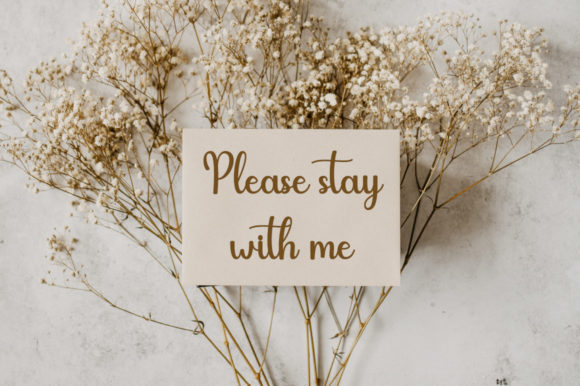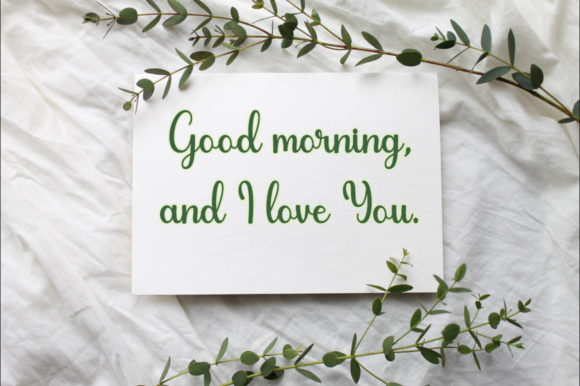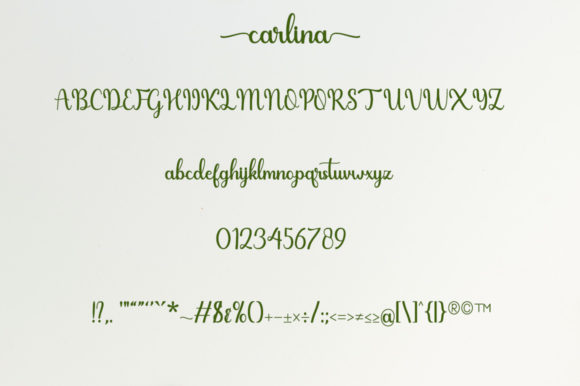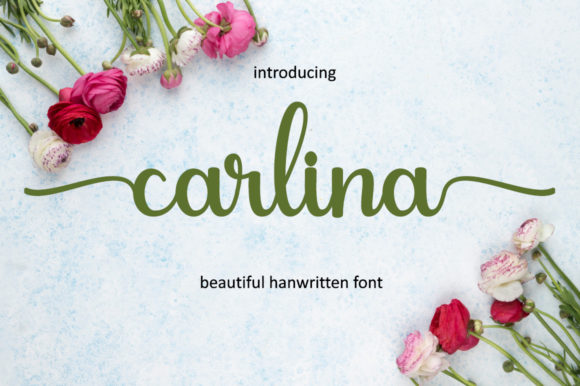
The Magic of Carlina Font: Elevating Your Designs with Elegance
I’ll never forget the moment I stumbled upon the Carlina font. I was working on a wedding invitation project for a client who wanted something elegant, yet playful. I had spent hours scouring through font libraries, but nothing seemed quite right. That was until I saw Carlina – its romantic calligraphy style and dancing characters immediately caught my eye. It was love at first sight! 💕
Carlina is more than just a beautiful font – it’s a game-changer for designers, crafters, and creative hobbyists looking to add a touch of luxury to their projects. In this article, I’ll share my honest review of Carlina, a step-by-step guide on how to use it, and some helpful tips and tricks to get the most out of this stunning typeface.
An Honest Review of Carlina Font
What I Love About Carlina ✨
- 💫 Romantic and sweet calligraphy style that’s perfect for wedding invitations, branding, and packaging designs
- 🌟 Highly legible and versatile, suitable for a wide range of design projects
- 🎨 Beautifully crafted characters that dance along the baseline, adding a touch of elegance to any design
- ⚠️ Some users may find the font a bit too ornate for certain projects, such as body text or captions
The Backstory of Carlina Font
Carlina is a beautiful calligraphy typeface designed with love and care. While the designer’s inspiration is not publicly known, it’s clear that Carlina was crafted with a passion for elegance and sophistication. The font’s romantic style and dancing characters evoke a sense of luxury and refinement, making it perfect for designers looking to add a touch of glamour to their projects.
Q: Is Carlina font suitable for body text or captions?
A: While Carlina is a beautiful font, it may be too ornate for body text or captions. It’s best used for headlines, titles, and short text passages.